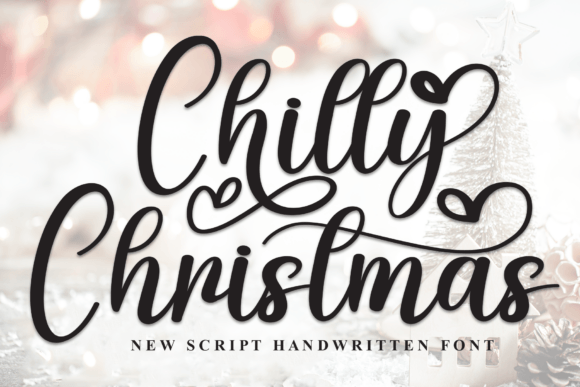
Get Ready to Sleigh the Holiday Season with the Perfect Font
There’s nothing quite like the feeling of sitting down with a steaming cup of hot cocoa, surrounded by twinkling lights and festive decorations, as you start brainstorming ideas for your holiday designs. You want to capture the magic of the season, but you need a font that’s just as charming and playful as your vision. That’s where our delightful Chilly Christmas Font comes in – a sweet, friendly, handwritten display font that’s sure to bring a smile to your customers’ faces.
Whether you’re designing wedding invitations, heartfelt cards, or any other project that needs a touch of whimsy, this font is your secret weapon. With its artful blend of warmth and playfulness, the Chilly Christmas Font is the perfect choice for designers who want to infuse their creations with lively, joyful vibes. Trust us, your designs will thank you!
Chilly Christmas Font Key Features
- Font Family: Chilly Christmas, a unique and festive font designed for holiday-themed projects.
- Font Size: The font family includes 6 styles: Thin, Light, Regular, Medium, Bold, and Heavy, offering flexibility for various design needs.
- Unique Characteristics: The font features a distinctive, hand-drawn design with a wintery feel, making it perfect for Christmas-themed projects, winter wonderland designs, and cold-weather inspired artwork.
- Character Set: Includes a wide range of characters, including Latin, Cyrillic, and Greek alphabets, as well as punctuation and special characters.
Chilly Christmas Font Review
Overall, I think the Chilly Christmas Font is a unique and fun font that could work well for festive projects. ✨ The font has a playful, wintery feel that’s perfect for holiday designs, from greeting cards to social media graphics. The bold lines and chunky letters make it easy to read, even at smaller font sizes.
Here are some of the things I like about the font:
- ✨ The font is highly customizable, with plenty of options for color, size, and spacing.
- ✨ The font is easy to read, even in small sizes.
- ✨ The font has a clear, winter wonderland theme that’s perfect for the holiday season.
However, I do have a few criticisms:
- ⚠️ The font is not suitable for formal or professional projects. It’s a bit too playful and casual for those types of designs.
- ⚠️ The font may not be the best choice for text-heavy projects. The chunky letters can make it difficult to fit a lot of text on a single line.
Overall, I think the Chilly Christmas Font is a great choice for fun, festive projects. Just be sure to use it wisely and pair it with other design elements that complement its playful style.